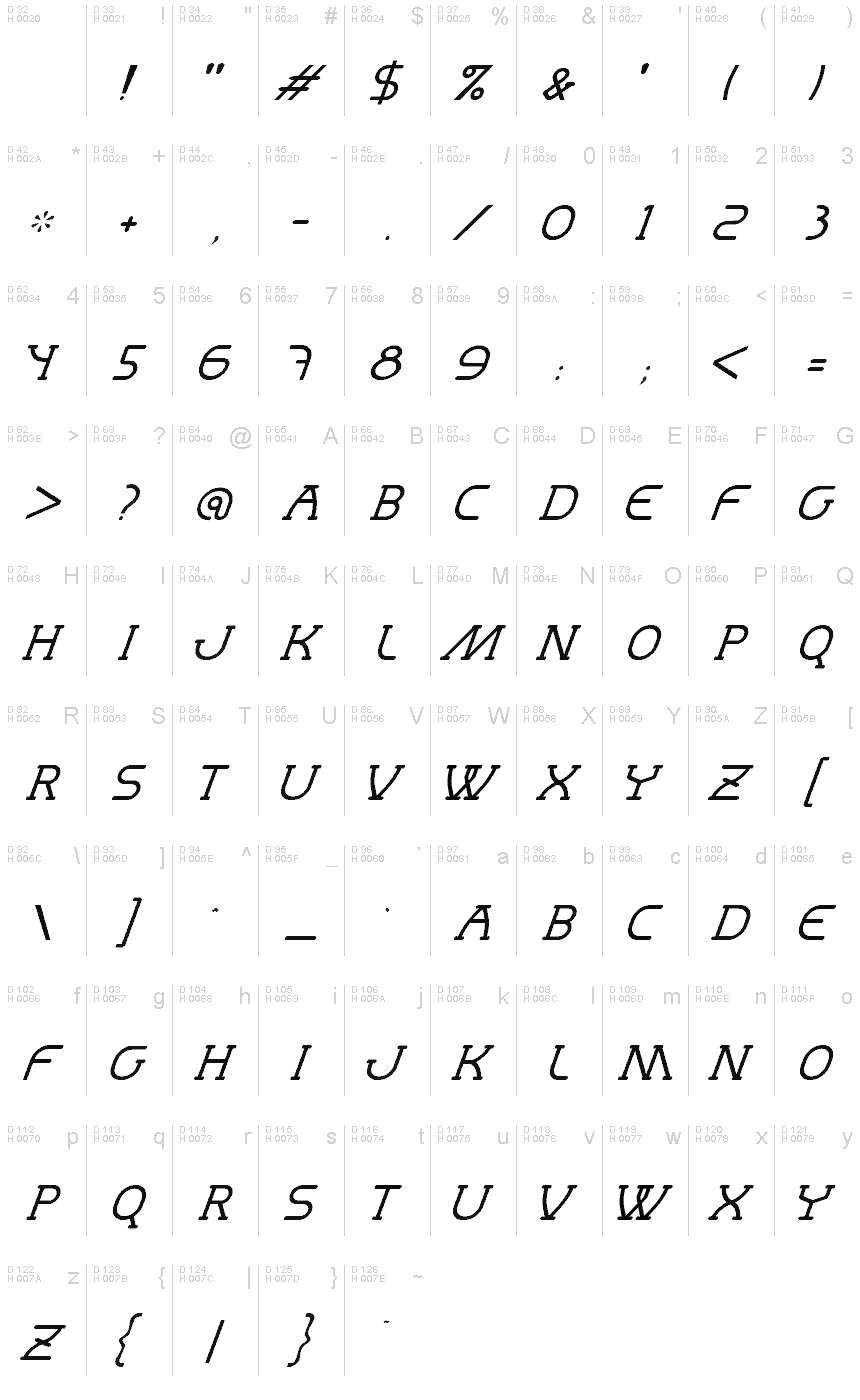
MastumThinItalic
Mastum Thin Italic by Xerographer Fonts embodies a striking, modern flair with its graceful curves and bold, expressive strokes. The font's delicate yet dynamic personality lends itself seamlessly to a wide range of design applications, from editorial layouts and branding initiatives to attention-grabbing headlines and captivating visual narratives. Its distinctive character and refined elegance make Mastum Thin Italic an invaluable tool for designers seeking to infuse their work with a captivating, contemporary aesthetic.
Expertly crafted by designer Max Infeld, this display font exudes a refined sophistication that commands attention while maintaining a sense of refined elegance.